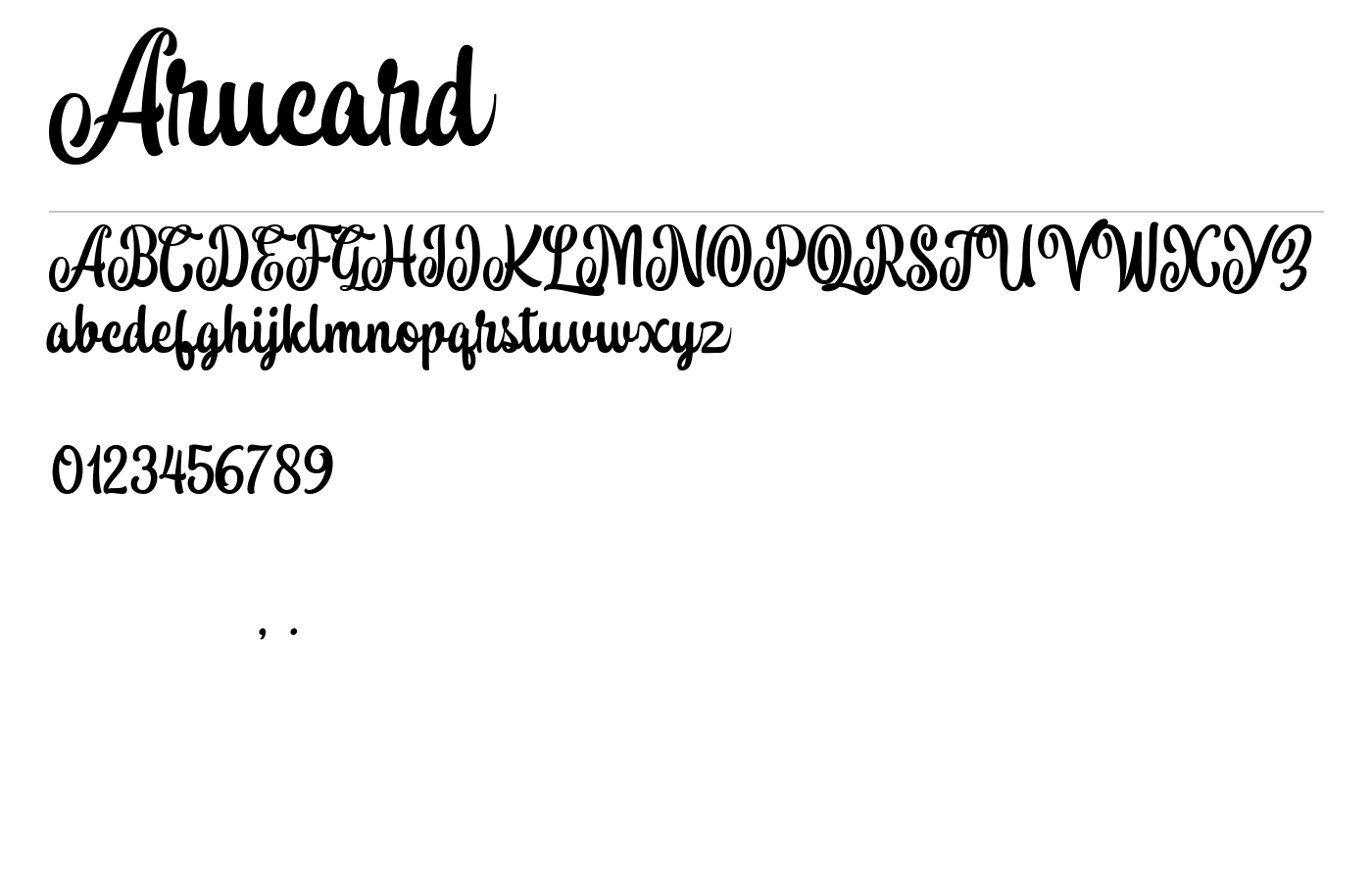
Arucard is a stylish script font with a bold weight and smooth, flowing curves that give it a lively and elegant personality. Its rounded, connected letterforms create a handwritten feel with distinctive loops and swashes, making it ideal for branding, logos, and display use where a charming, playful touch is desired. This font works especially well for fashion, invitations, and creative projects seeking a blend of sophistication and approachability.
Arucard Font
About Arucard Font
| Font family | Arucard Font |
| Designer | Satia Hayu Prabowo |